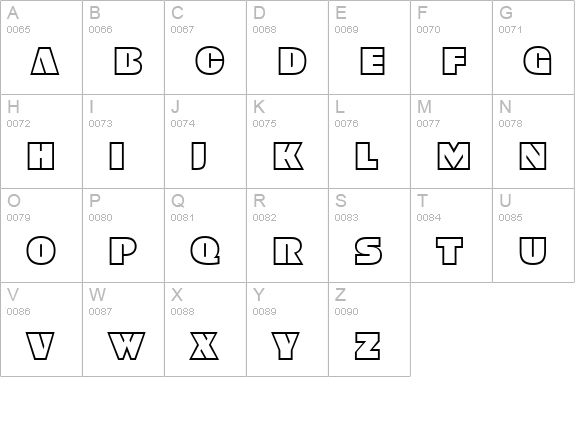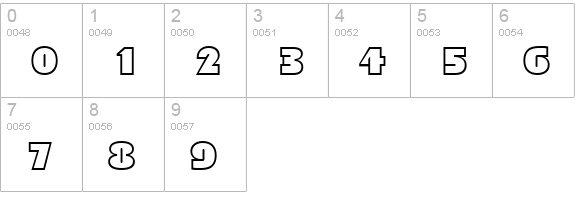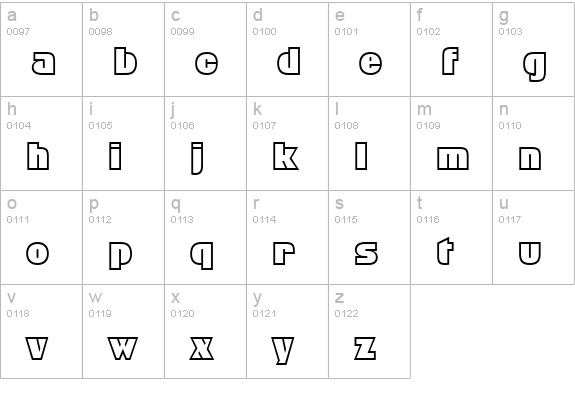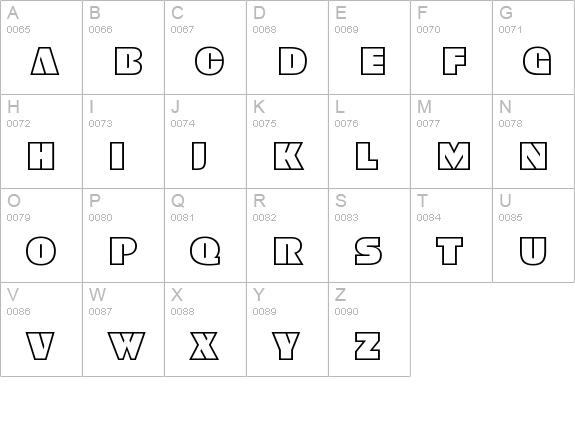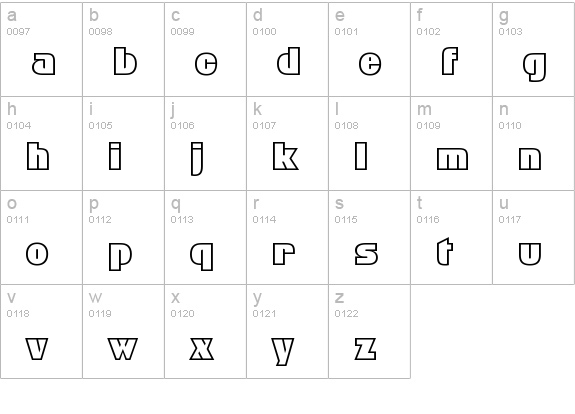
FFX Block Outline Font Details
FFX Block Outline font is a modern and stylish typeface perfect for creating eye-catching designs. This unique font features bold lines and a structured outline that adds a touch of sophistication to any project. The clean and minimalistic design of FFX Block Outline font makes it versatile and suitable for a wide range of design applications. The best part about FFX Block Outline font is that it is completely free to download at FontsMarket.com. This means you can easily access this premium-quality font without any cost, making it a valuable addition to your font collection. Whether you are working on graphic design projects, branding materials, or social media content, FFX Block Outline font is sure to make a statement and elevate your designs to the next level. Don't miss out on this fantastic font - download it for free today and start creating stunning visuals with ease.